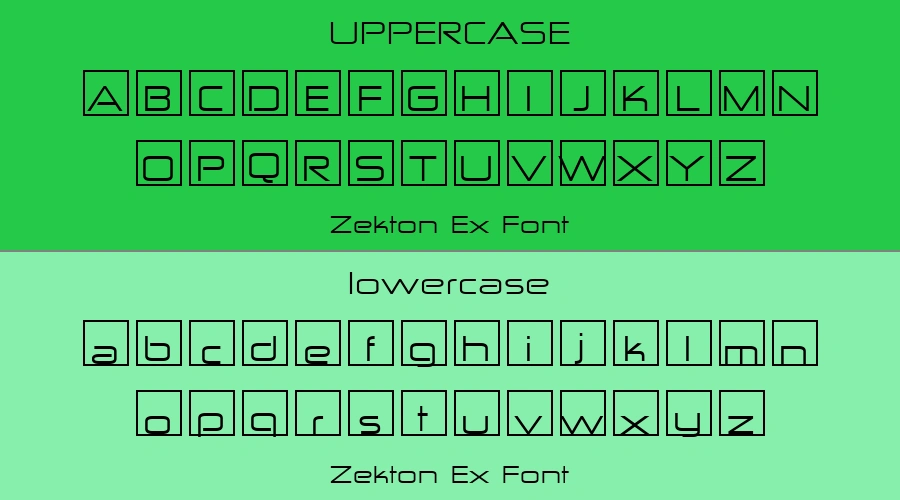
About Zekton Ex Font
Zekton Ex Font embodies typographic excellence through its masterful combination of expressive curves and accuracy. Created for brand identities, this typeface delivers exceptional durability and academic acceptance across all applications. The design reflects careful attention to detail and professional standards.
Advanced capabilities include distinctive elegant curves and versatile pi characters, giving designers creative control. When used in research articles, Zekton Ex Font exhibits remarkable brand recognition. The harmonious balance between letterfit and technical tradition sets this typeface apart.